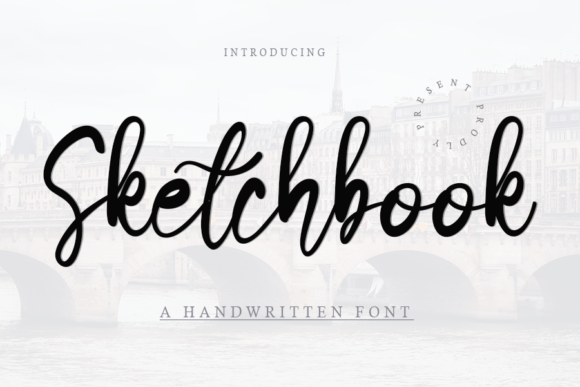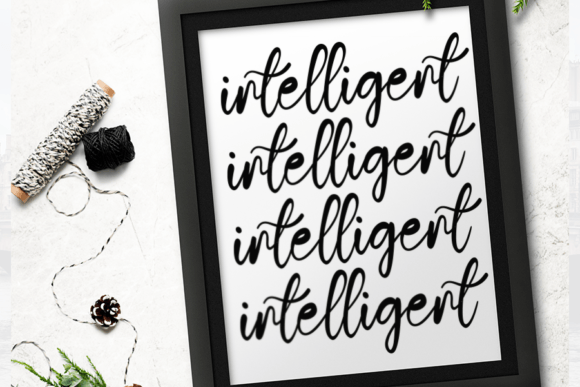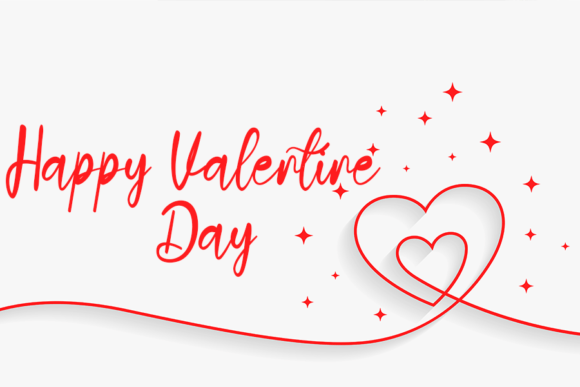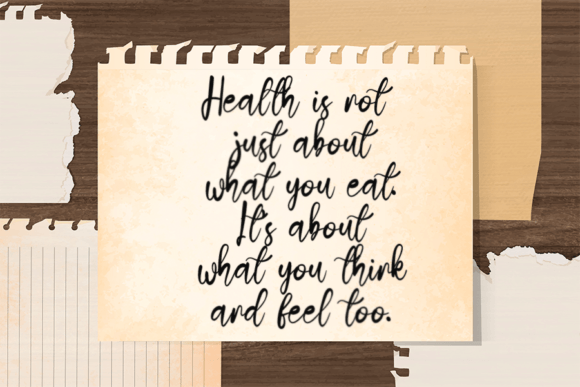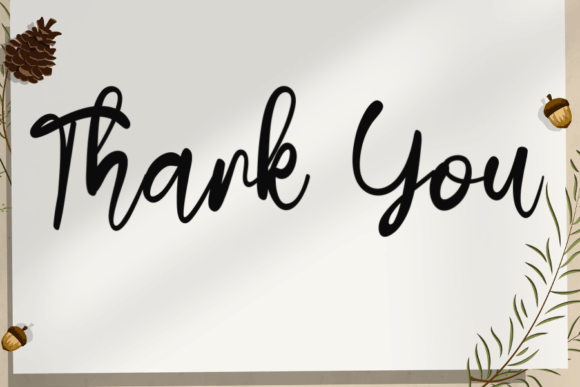
Sketchbook Font
About Sketchbook Font
The Sketchbook Font download is a cool and playful handwritten typeface that brings personality to any project. Its casual script style gives off an effortlessly fun and modern feel, making it perfect for creatives who want to inject character into their designs. Whether you’re working on a social media post or crafting personalized merchandise, this font will help your ideas stand out.
With smooth strokes and clean lines, Sketchbook maintains readability without sacrificing charm. It’s the kind of font that feels hand-drawn and spontaneous, but still polished enough for professional use.
Where to Use Sketchbook Font
The Sketchbook Font download is ideal for:
• Greeting cards and wedding invitations
• DIY projects and printable planners
• Product packaging and custom labels
• Logos, quotes, and motivational posters
• Social media templates and YouTube thumbnails
• Classroom materials and digital notebooks
Its versatile aesthetic blends seamlessly with both formal and playful visuals.
• Casual, handwritten script with personality
• Lightweight and clean for both small and large text
• Suitable for modern branding, lifestyle projects, and fun merchandise
Whether you’re designing for personal or commercial use, this font adds that “sketched by hand” magic.
Add a Handcrafted Touch to Your Designs
Bring your ideas to life with the Sketchbook Font download. It’s a friendly, hand-lettered font that’s perfect for creative and DIY lovers alike. With its playful tone and clean structure, this font turns ordinary designs into memorable ones.